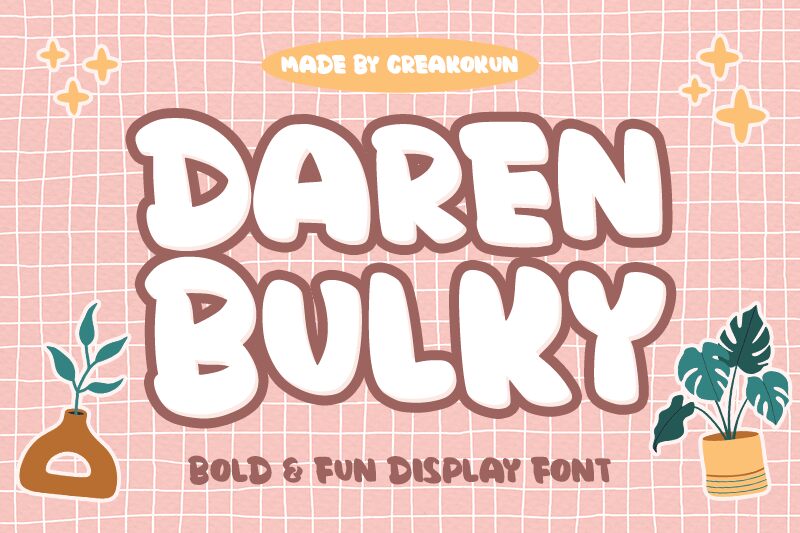
Introducing Daren Bulky, a bold, wide display font designed by M Arif Dwi Prasetyo & Eko Nurcahyo. Its fun comic style is perfect for adding a quirky touch to projects such as poster designs, logos, and book covers.
Daren Bulky
Creakokun Studio
M Arif Dwi Prasetyo & Eko Nurcahyo